Ming typefaces
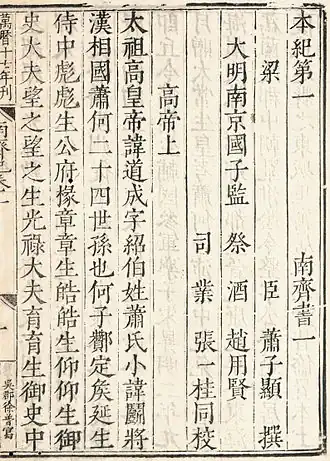
Ming or Song is a category of typefaces used to display Chinese characters, which are used in the Chinese, Japanese and Korean languages. They are currently the most common style of type in print for Chinese and Japanese. For Japanese and Korean text, they are commonly called Mincho and Myeongjo typefaces respectively.
Name
The names Song (or Sung) and Ming correspond to the Song dynasty when a distinctive printed style of regular script was developed, and the Ming dynasty during which that style developed into the Ming typeface style.[1] In Mainland China, the most common name is Song (the Mainland Chinese standardized Ming typeface in Microsoft Windows being named SimSun). In Hong Kong, Taiwan, Japan and Korea, Ming is prevalent. In Hong Kong and Taiwan, "Song typeface" (宋体) has been traditionally used, but "Ming typeface" (明體) has gained popularity since the advent of desktop publishing (the Traditional Chinese standardized Ming typeface in Microsoft Windows being named MingLiU). Some type foundries[2] use "Song" to refer to this style of typeface that follows a standard such as the Standard Form of National Characters, and "Ming" to refer to typefaces that resemble forms found in the Kangxi Dictionary.
Characteristics
Characteristics of Ming typefaces include the following:
- The basic structure of regular script
- Thick vertical strokes contrasted with thin horizontal strokes
- Triangles at the end of single horizontal strokes, called uroko (鱗, literally "fish scales") in Japanese, comparable to serifs. These are a print analog of the slight dot caused by pausing one's brush (dùn 頓), the "pause technique", used to reinforce the beginning or ending of a stroke, which is characteristic of regular script.
- Overall geometrical regularity
Possessing variable line weight and characteristic decorations at the end of lines similar to serifs, this type style is comparable to Western serif typefaces, as opposed to East Asian gothic typefaces which are comparable to Western sans-serif.
Variations
Often there are different ways to write the same Chinese character; these are collectively referred to as variant Chinese characters. Some of the differences are caused by character simplification, while others are purely orthographic differences such as stroke styling. The styling of the strokes used in old Ming typefaces came from the style used in the Kangxi Dictionary.
In mainland China, the modern standardized character forms are specified in the List of Commonly Used Characters in Modern Chinese. Some characters in the list differ from the Kangxi forms solely because they are Simplified while others differ because they use a different variant or orthography.
In Taiwan, the Standard Form of National Characters specifies the modern standardized forms. Unlike the mainland standard, the Taiwan standard uses mostly preexisting character forms but reference back to the style of regular script and reform Ming typefaces based on regular script style extensively, which had attracted criticism from many peoples.[3][4]
After the postwar kanji reforms in Japan, most of the Kangxi style characters were called kyūjitai (old style), while the reformed characters were called shinjitai, causing newer dictionaries to either incorporate both styles or omit the Kangxi styles. In Korea, most typefaces use the Kangxi forms.
There are differences between print and script forms of many Chinese characters, just as there are differences between copperplate and most people's handwriting. Some of these differences are persistent and specific to a style, but others may be no more significant than variations between individual typefaces. None of these variations usually hinder reading.
History
China
The printing industry from the Tang dynasty reached an apex in the Song dynasty,[1] during which there were three major areas of production:
- Zhejiang, where publications imitated the regular script of Ouyang Xun[1]
- Sichuan, where publications imitated the regular script of Yan Zhenqing[1]
- Fujian, where publications imitated the regular script of Liu Gongquan[1]
When Song lost control of northern China to the Jin (金) dynasty, its capital was moved to Lin'an (modern Hangzhou), where there was a revival of printing, especially literature from Tang left in what was conquered by the Jin dynasty. Many publishers were established in Lin'an, including Chén zhái shūjí pù (陳宅書籍鋪) established by Chen Qi (Chinese: 陳起),[1] from which publications used a distinct style of regular script with orderly, near-constant-width, straight strokes, simplifying carving. Modern typefaces imitating this style are called imitation Song typefaces (simplified Chinese: 仿宋体; traditional Chinese: 仿宋體; pinyin: fǎng Sòng tǐ).